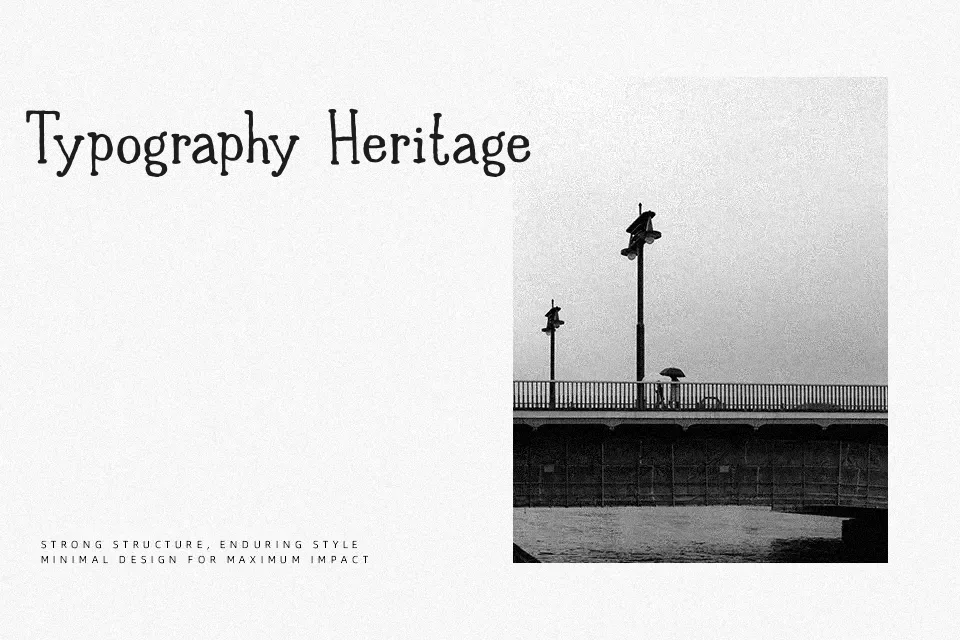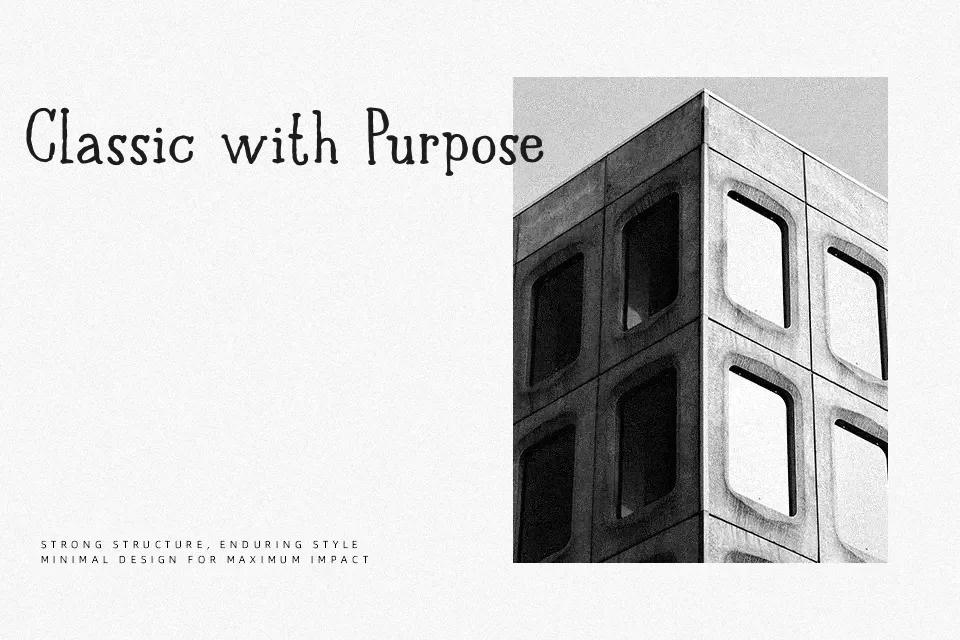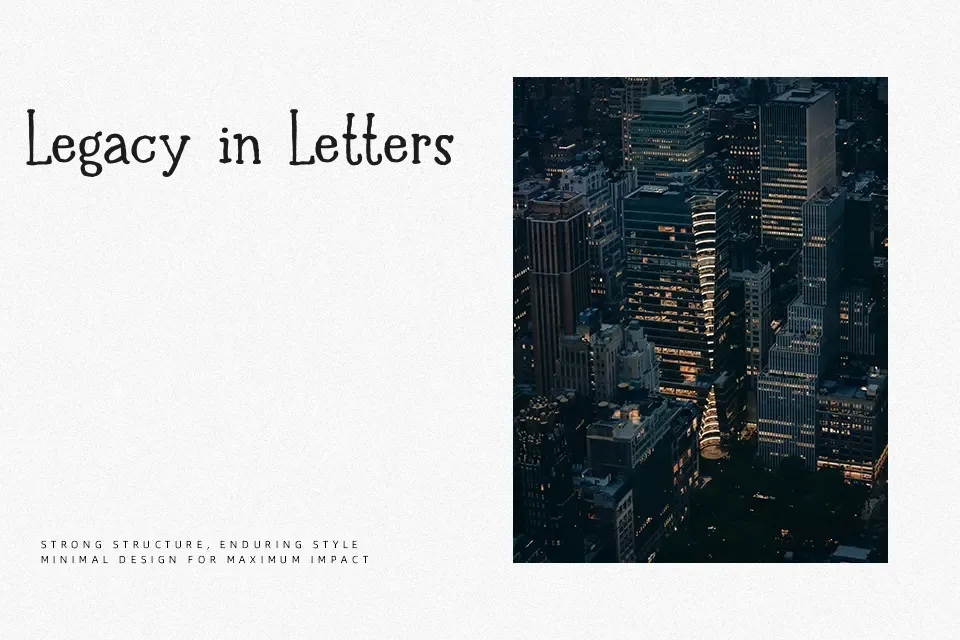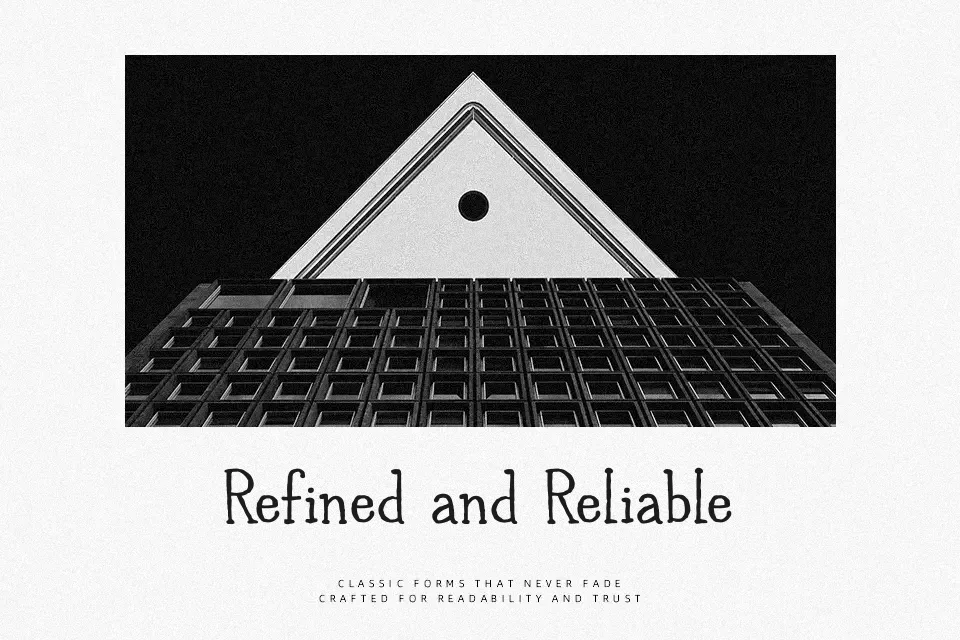
DK Halewyn Font
Designed by Hanoded
DK Halewyn Font has a handmade serif structure with narrow proportions, irregular stroke edges, and slightly restless spacing that gives the letters a worn, storybook tone. The shapes feel decorative rather than polished, with enough texture to add mood without turning into full blackletter. It works nicely on Halloween flyers, fantasy book covers, candle labels, or event graphics that need an old-world hint. In larger settings, the character comes through clearly; in small UI text or dense paragraphs, that same uneven rhythm starts to feel distracting. If you want something tidy and neutral, this is probably the wrong direction.
Halloween posters
fantasy book covers
themed packaging
seasonal social graphics
body copy
app interfaces
corporate branding
small captions
Perfect for halloween, headline, and packaging, with a dark and decorative style.